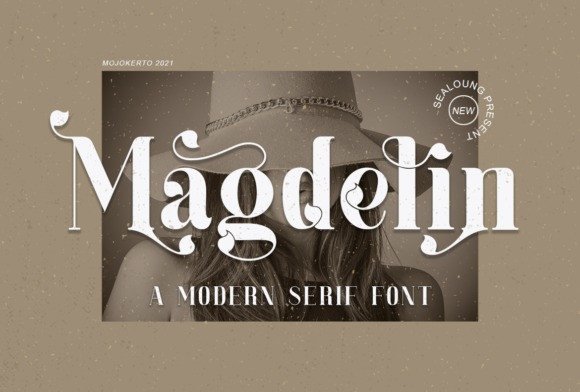
Magdelin Font
Magdelin Serif Font is a vintage look label serif font. This font has neat and sleek letterform, make it looks great to be used for modern and minimalistic design theme. It is defined by smooth curves and is perfect for fashion branding or editorial designs. Add it confidently to your projects, and you won’t be disappointed.